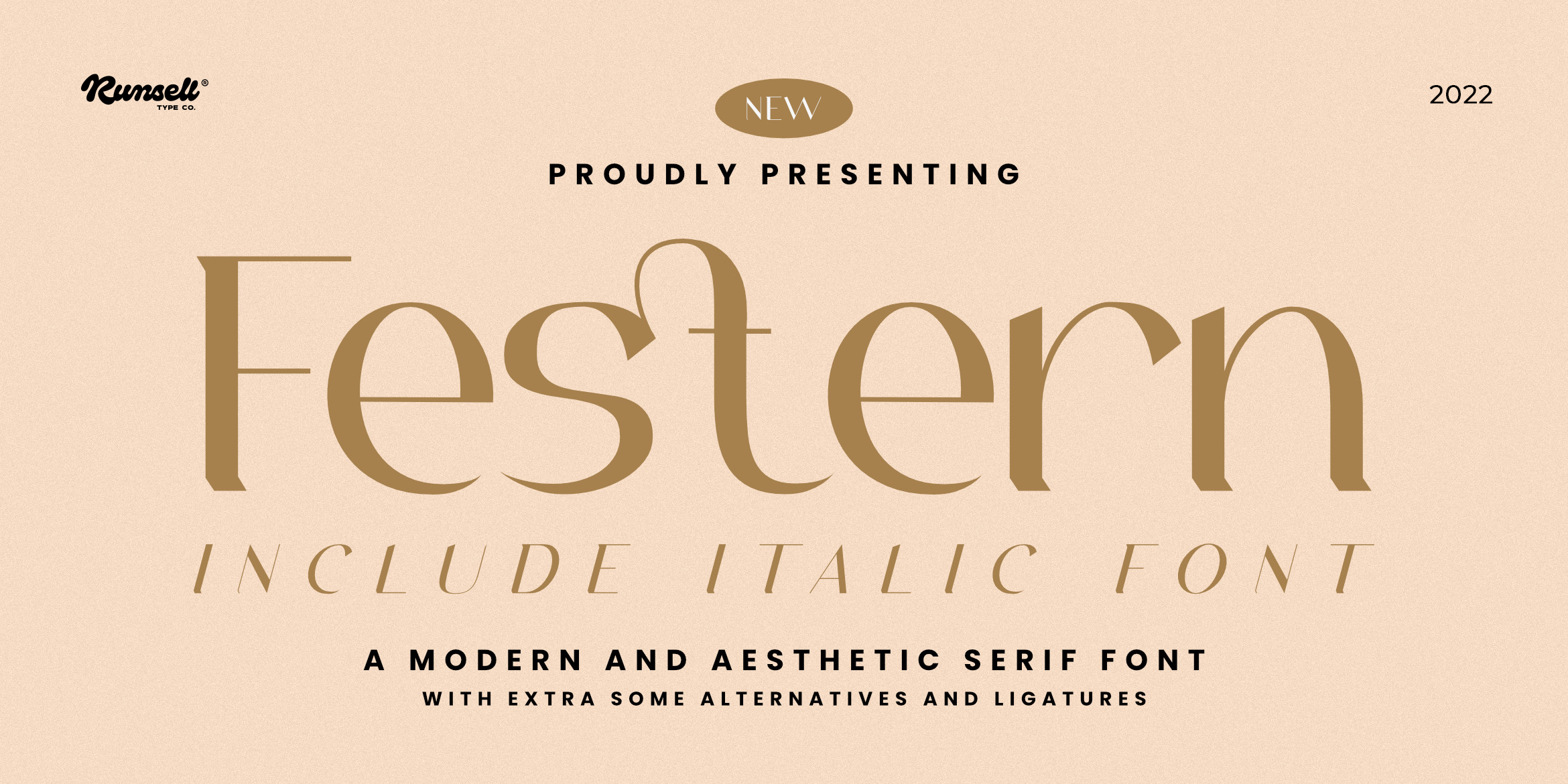
This celebratory typeface excels in music festival posters, event planning materials, party invitation designs, concert venue signage, celebration brand identities, entertainment company logos, nightclub promotions, and festive marketing campaigns. Its joyful energy makes it perfect for projects capturing the excitement and vibrant atmosphere of memorable celebrations.
Festern Font creates excitement through its infectious celebration spirit that embodies the pure joy of festivals and communal gatherings. The font's dynamic curves and energetic letterforms create an atmosphere of unbridled enthusiasm that resonates with audiences seeking unforgettable experiences and shared moments of happiness. Its carefully choreographed character variations deliver festival-ready readability while maintaining distinctive party personality that reflects the universal human desire for connection, music, and celebration.
The Festern Font family features multiple celebration-themed variations including regular, light, bold, script, and decorative styles. Each family member maintains the distinctive festive aesthetic while offering different levels of excitement for various entertainment applications. This jubilant collection allows designers to create electrifying compositions that capture the full spectrum of celebratory experiences from intimate gatherings to massive festival spectacles.